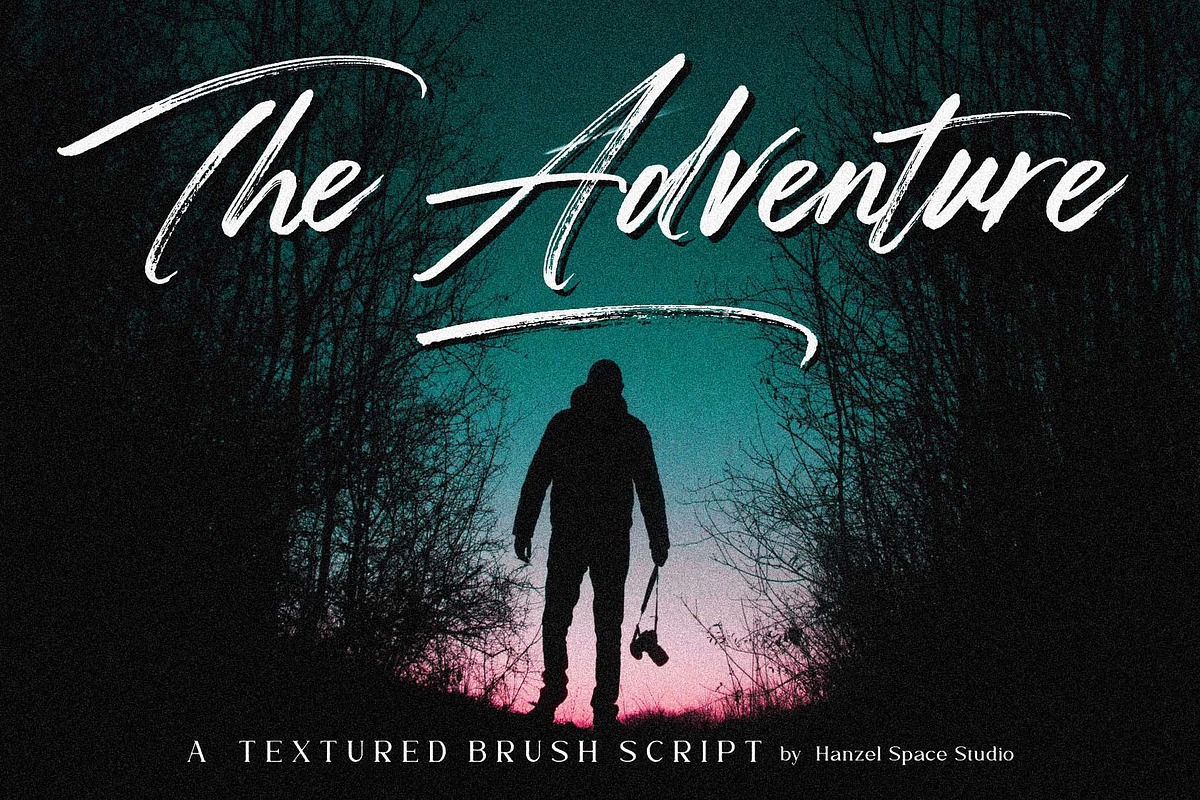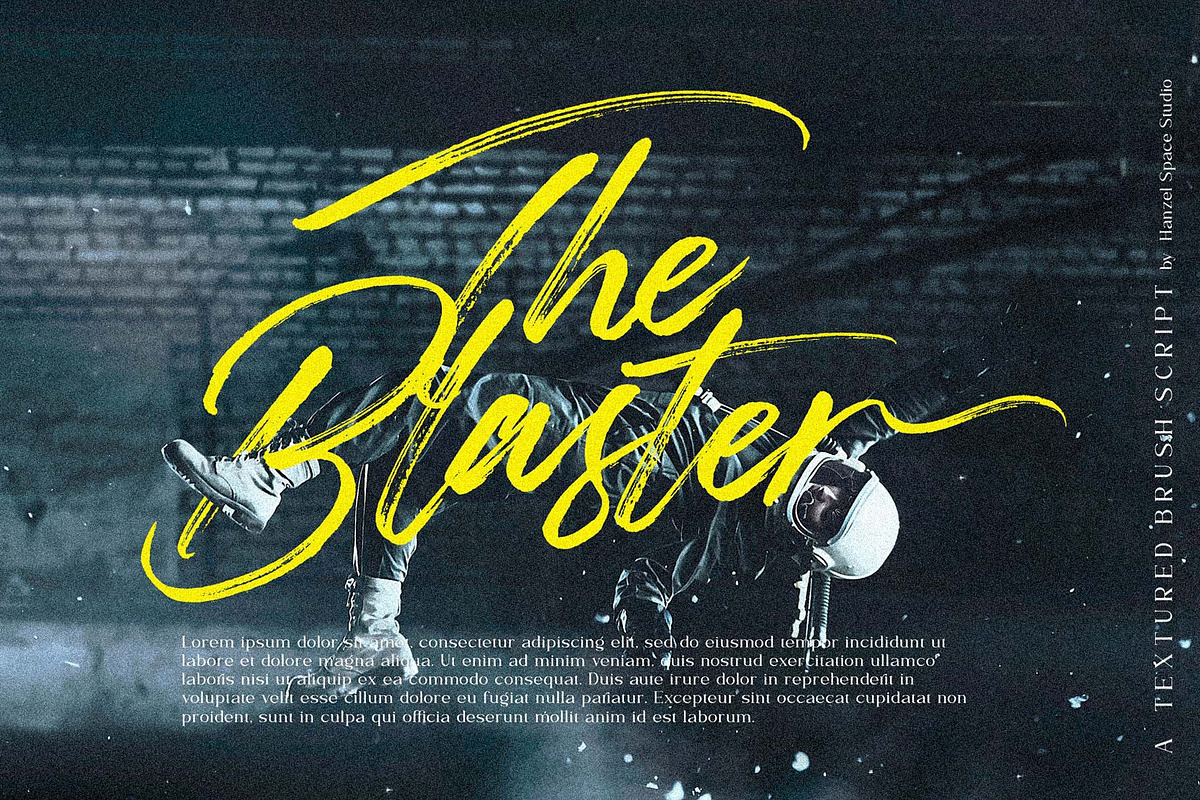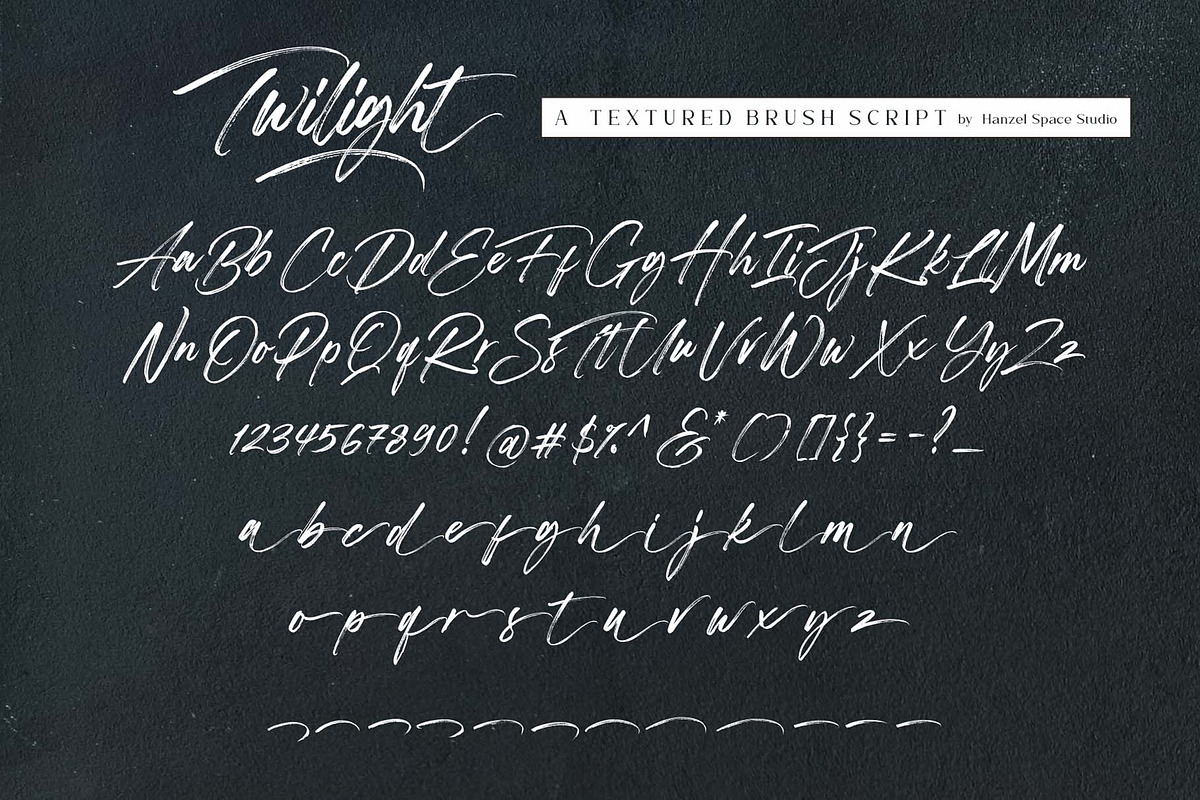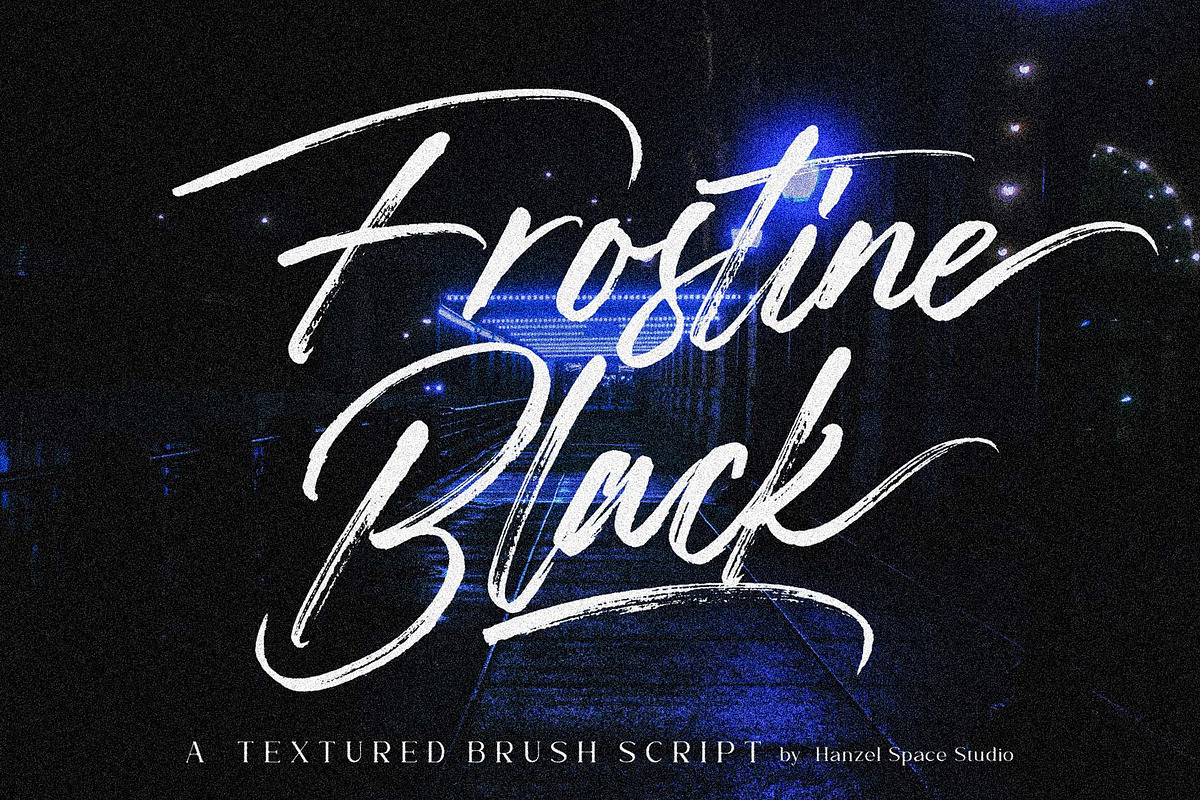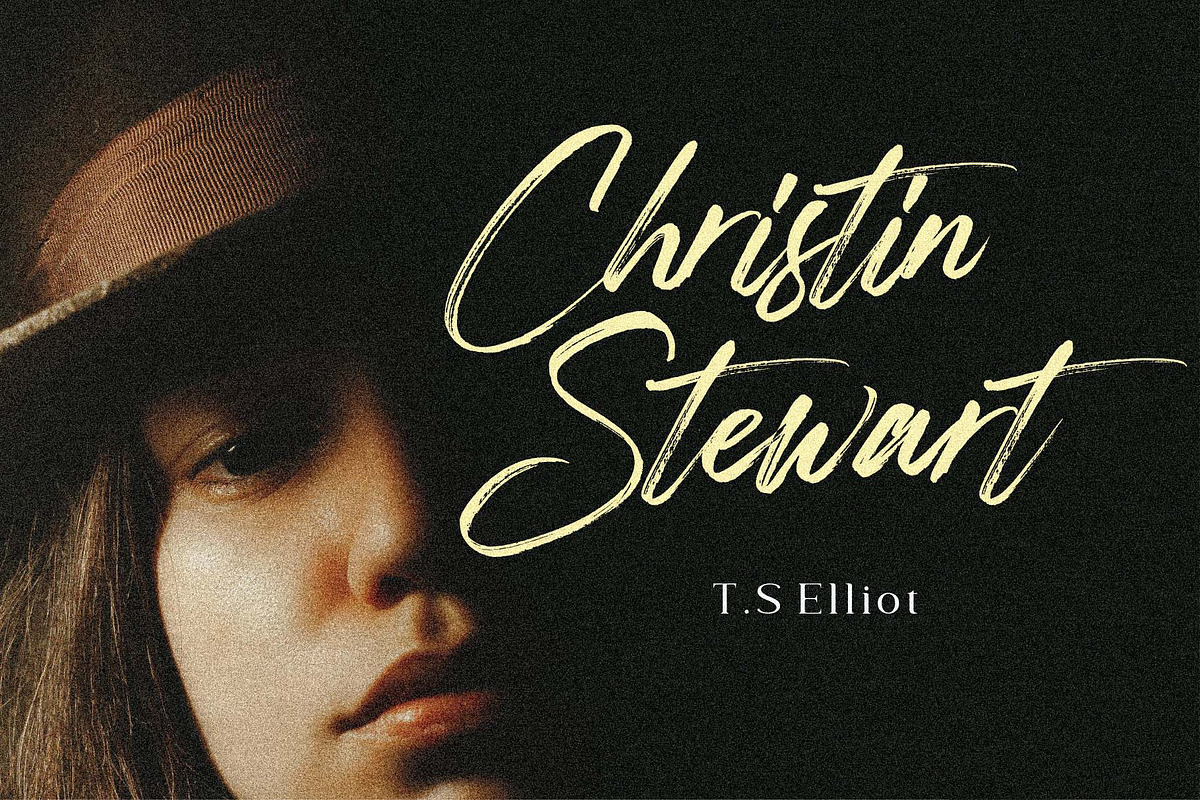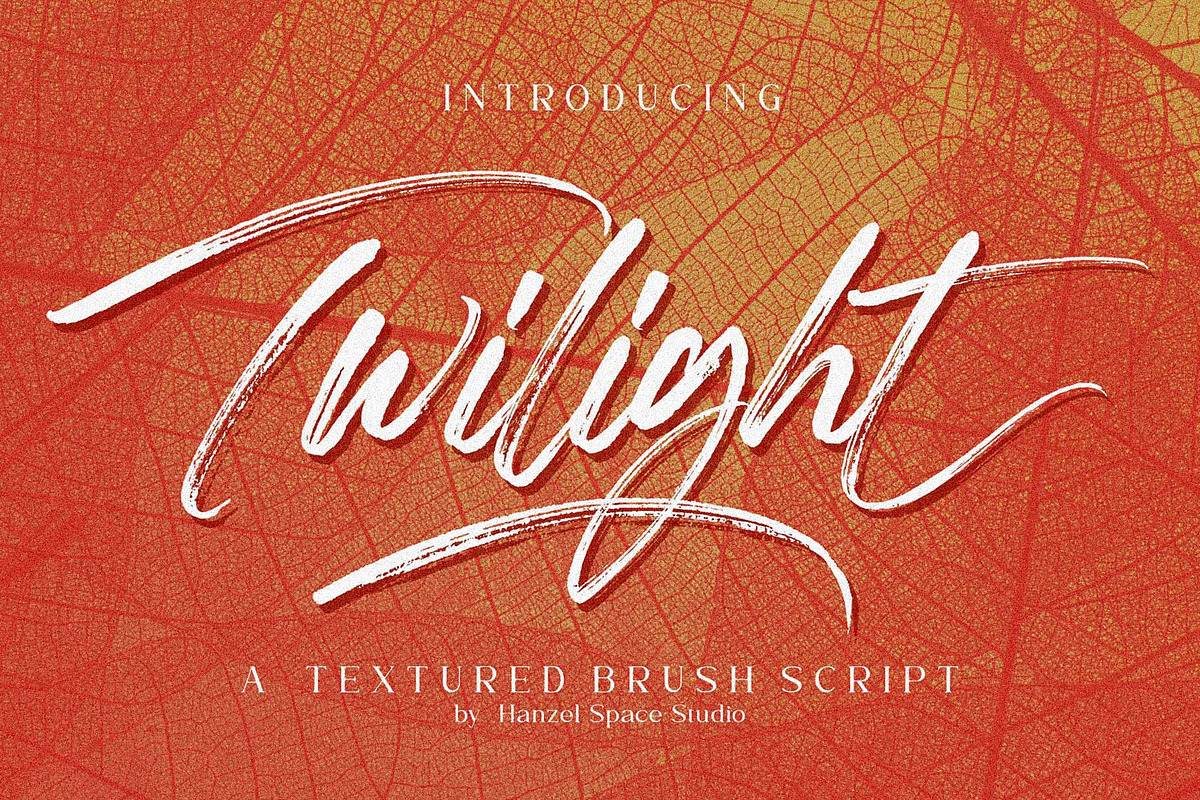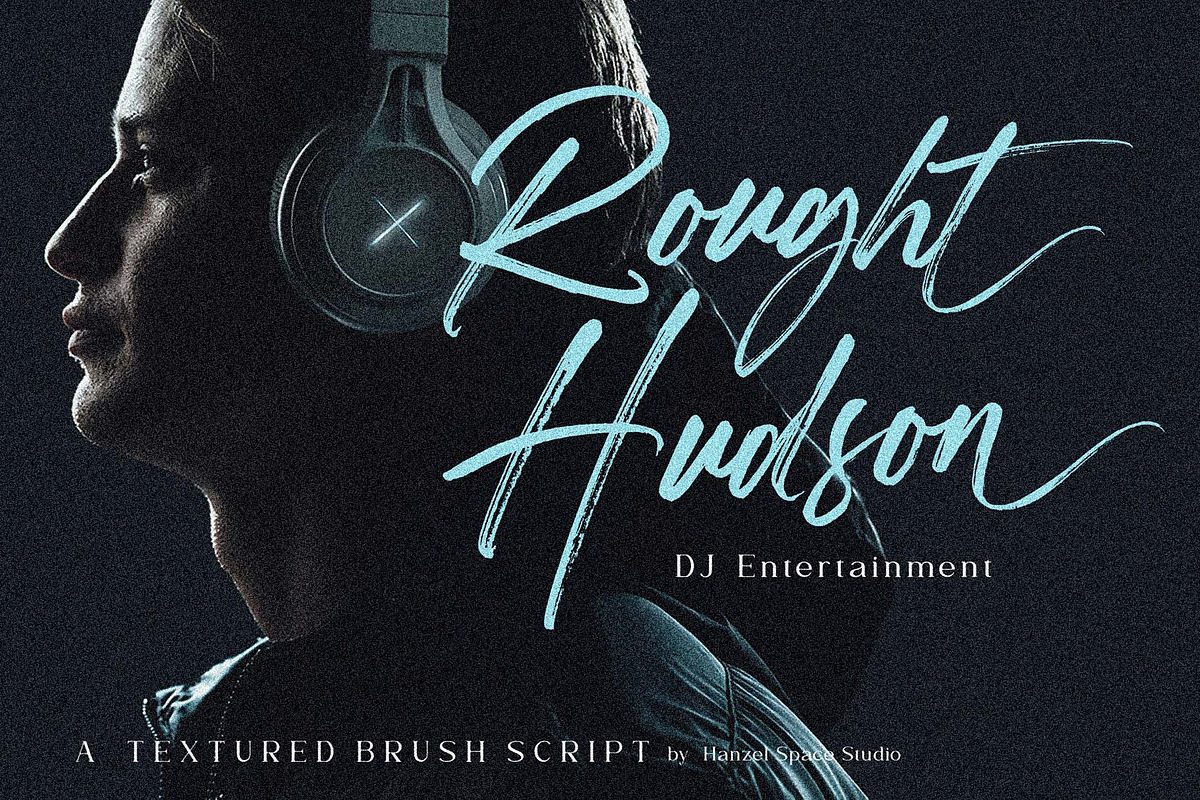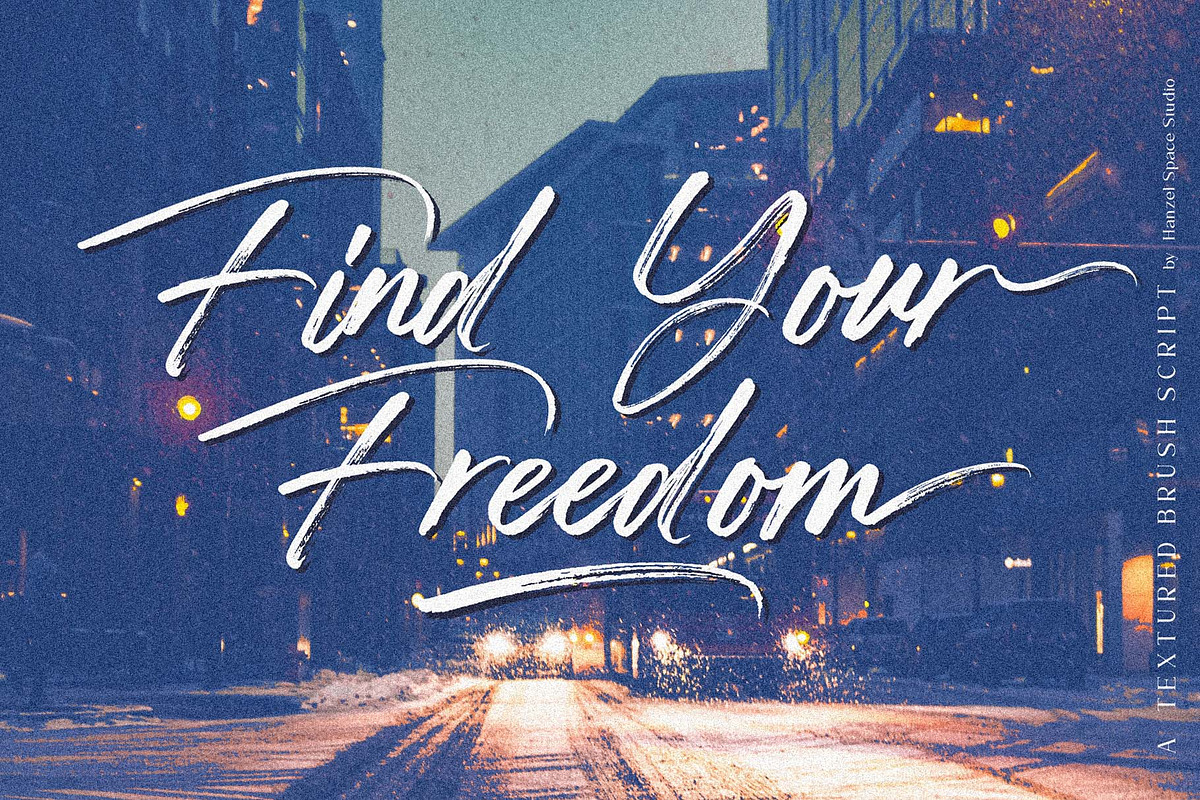
Twilight - Textured Brush Script
We present our new font "Twilight Font" This font was created with a touch of original handwriting using a brush pen. Has a natural and textured feel, and has a distinctive character and is different from other fonts. One more thing that is interesting is that this font is suitable for various kinds of your design needs, namely logos, brochures, posters, quotes, branding and so on.